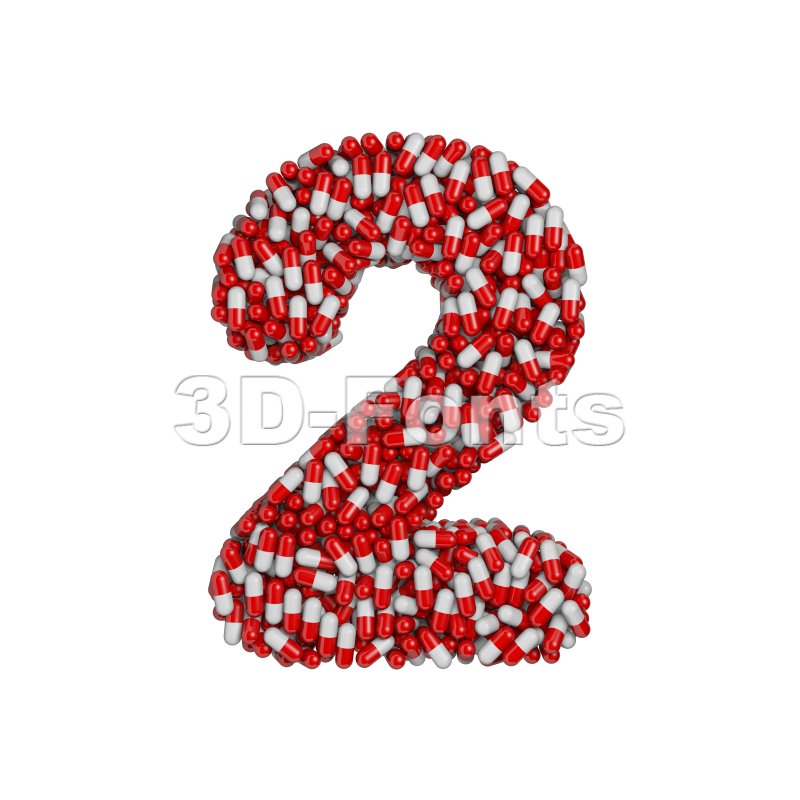
pills digit 2
pills digit 2 isolated on a white background.
This 3d font collection is well-suited for various creative projects including but not limited to :
- Healthcare.
- medication.
- laboratory...